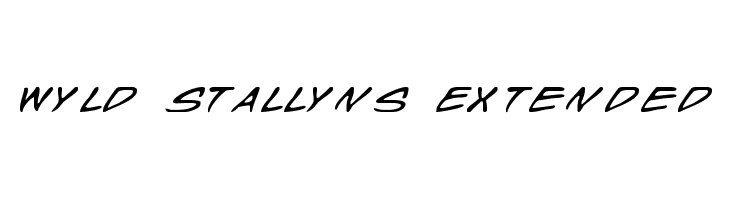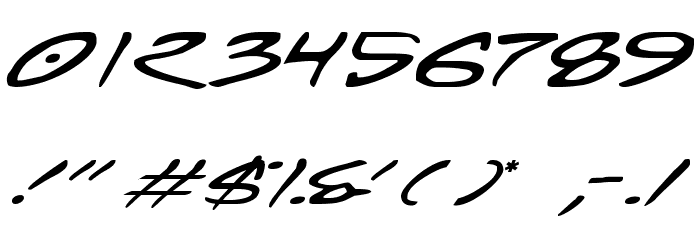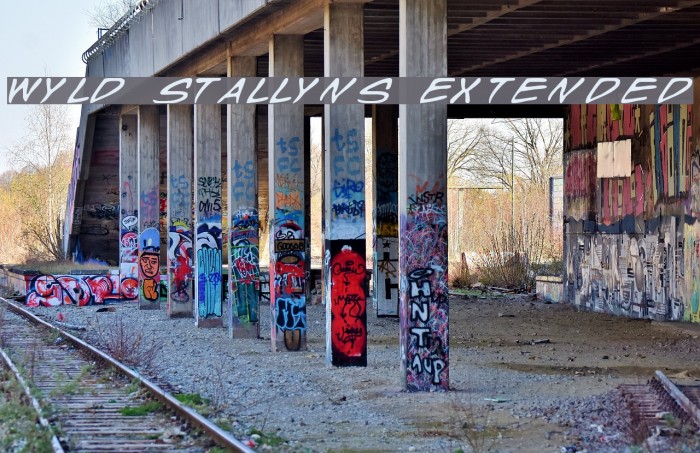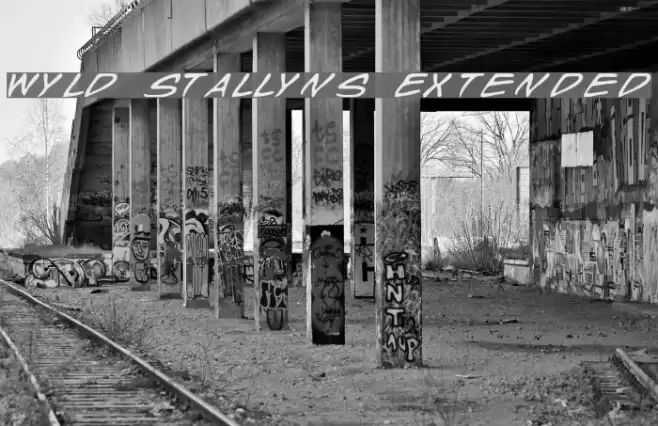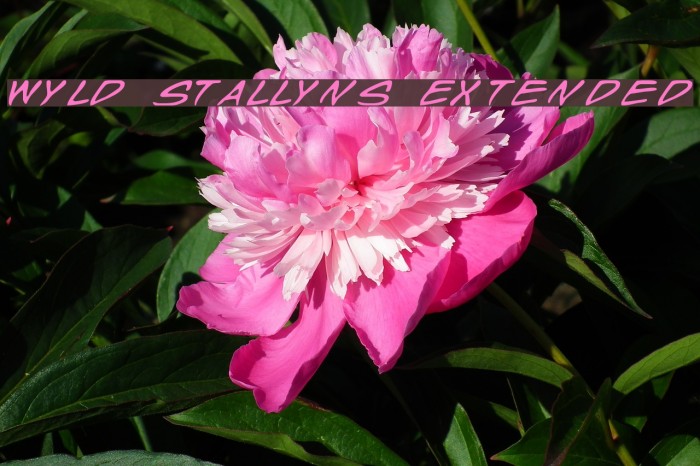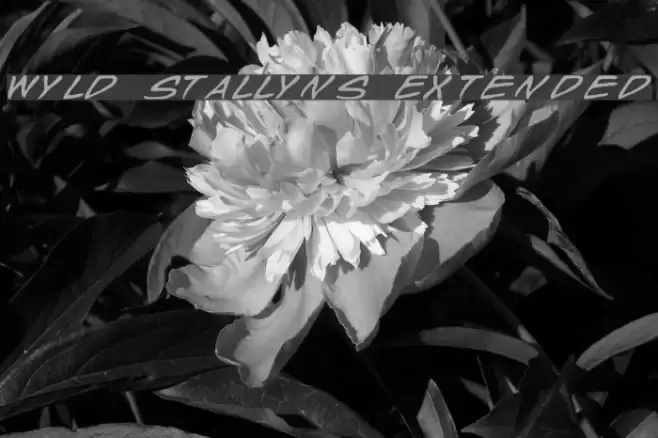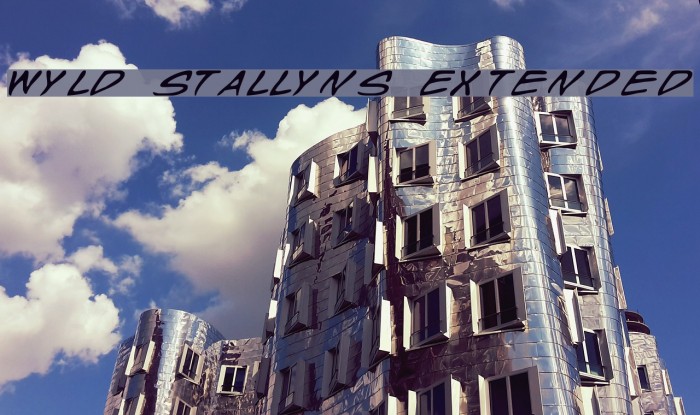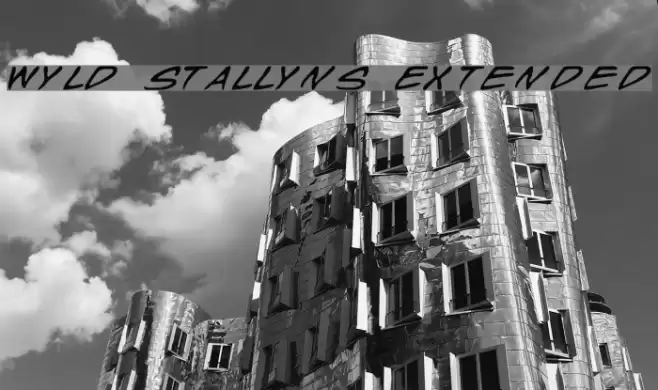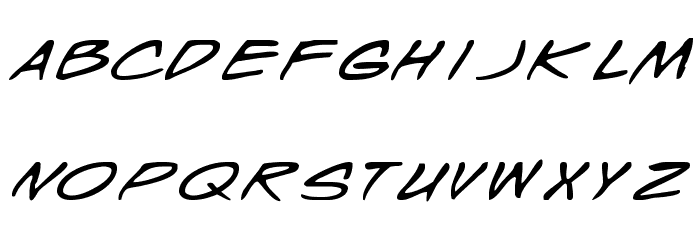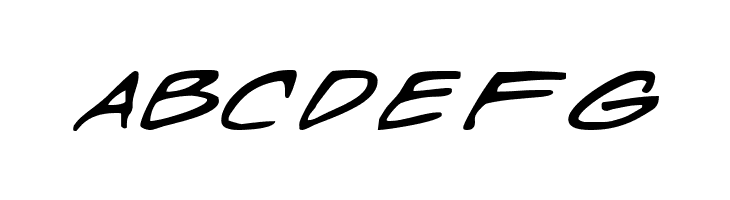
Wyld Stallyns Extended Font
| Projets proposés | Ideal for music album covers, event posters, branding for energetic products, and creative social media graphics. |